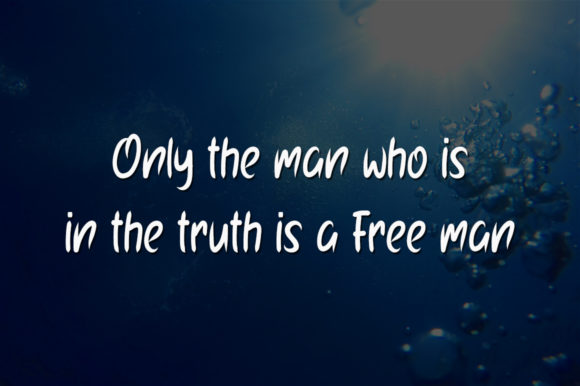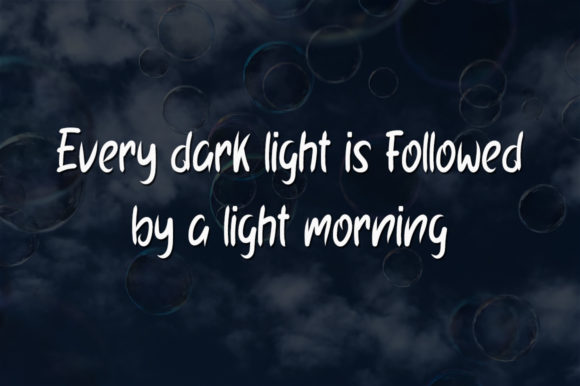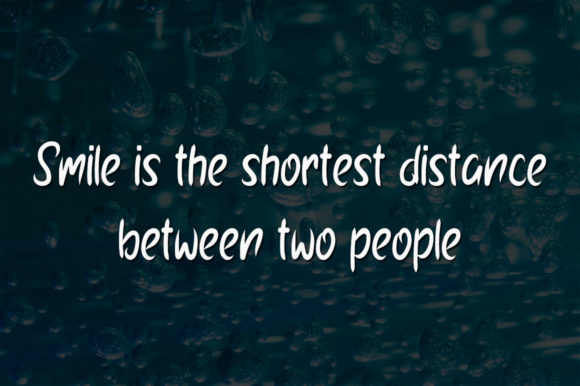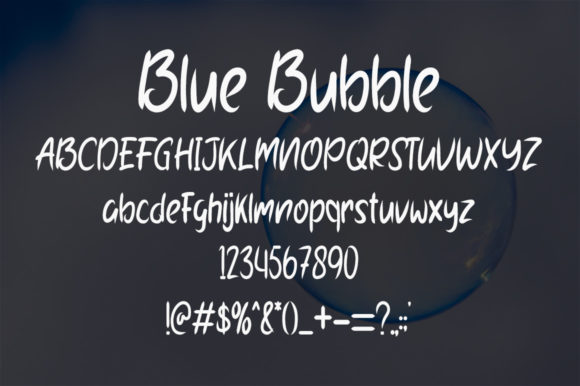
Introducing Blue Bubble Font: The Perfect Handwritten Companion for Your Designs
Are you a designer, crafter, or DIY enthusiast looking for a font that can add a personal touch to your projects? Look no further than Blue Bubble Font, a simple and neat handwritten font that’s taking the design world by storm. With its natural and unique style, Blue Bubble is incredibly versatile and can be used in a wide range of designs, from creative crafts to digital masterpieces.
The Charm of Blue Bubble Font
Blue Bubble Font boasts a charming, handwritten aesthetic that’s both elegant and approachable. Its smooth, flowing lines and rounded edges give it a friendly, approachable feel that’s perfect for designs that require a personal touch. Whether you’re creating invitations, greeting cards, or social media graphics, Blue Bubble Font is the perfect choice for adding a dash of personality to your work.
What Makes Blue Bubble Font So Special?
So, what sets Blue Bubble Font apart from other fonts? Here are just a few reasons why designers and crafters are falling in love with this amazing font:
- Unique Style: Blue Bubble Font has a distinctive, one-of-a-kind style that’s both modern and vintage-inspired. Its natural, handwritten look makes it perfect for designs that require a personal touch.
- Highly Versatile: Whether you’re creating digital graphics, print materials, or handmade crafts, Blue Bubble Font is incredibly versatile and can be used in a wide range of projects.
- Easy to Read: Despite its unique style, Blue Bubble Font is incredibly easy to read, making it perfect for designs that require a clear, legible font.
- Perfect for Crafts: Blue Bubble Font is a dream come true for crafters, particularly those who enjoy making handmade cards, scrapbooking, and other paper crafts.
How to Use Blue Bubble Font in Your Designs
One of the best things about Blue Bubble Font is how easy it is to use in your designs. Here are a few ideas to get you started:
- Handmade Cards: Add a personal touch to your handmade cards with Blue Bubble Font. Use it for the main message or as a decorative element to add visual interest.
- Social Media Graphics: Use Blue Bubble Font to add a personal touch to your social media graphics, from Instagram posts to Facebook updates.
- Invitations: Create beautiful, one-of-a-kind invitations for special occasions like birthdays, weddings, and baby showers.
- Scrapbooking: Add a touch of elegance to your scrapbooking projects with Blue Bubble Font. Use it to title your pages or add captions to your photos.
Tips for Getting the Most Out of Blue Bubble Font
To get the most out of Blue Bubble Font, here are a few tips to keep in mind:
- Experiment with Colors: Blue Bubble Font looks amazing in a range of colors, from bold brights to soft pastels. Experiment with different colors to find the perfect look for your design.
- Mix and Match: Don’t be afraid to mix and match Blue Bubble Font with other fonts to create a unique, layered look.
- Play with Size: Blue Bubble Font looks great in a range of sizes, from large headings to small captions. Experiment with different sizes to add visual interest to your design.
In conclusion, Blue Bubble Font is a simple and neat handwritten font that’s perfect for designers, crafters, and DIY enthusiasts. Its natural and unique style makes it incredibly versatile and fitting for a large pool of designs. Whether you’re creating handmade cards, social media graphics, or digital masterpieces, Blue Bubble Font is the perfect choice for adding a personal touch to your work. So why wait? Download Blue Bubble Font today and let your imagination run wild!